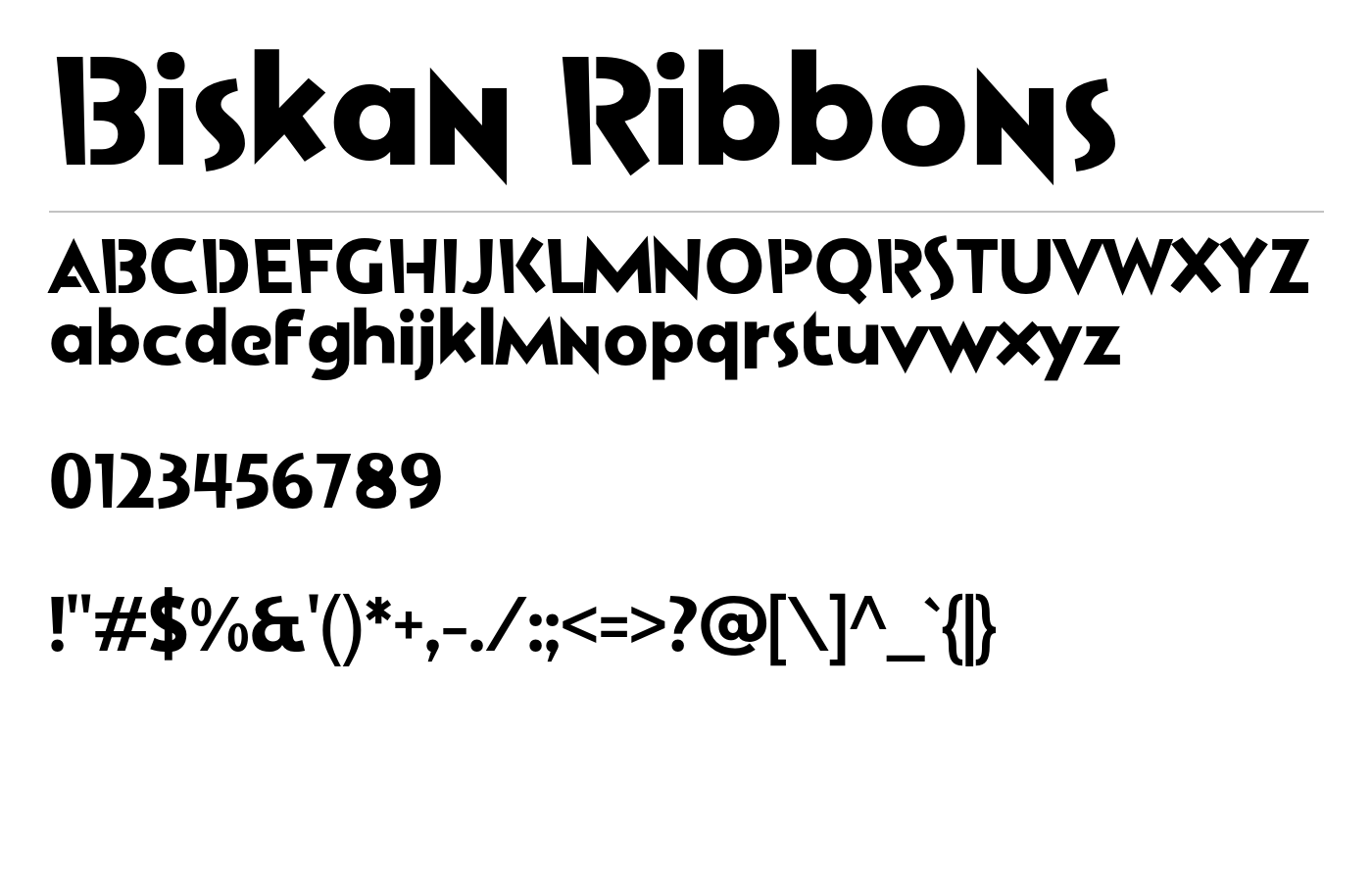
Biskan Ribbons is a bold, geometric sans serif font with playful, ribbon-like cutouts that give it a unique, modern character. Its strong presence and quirky shapes make it ideal for eye-catching headlines, logos, and creative branding where a fun yet confident style is needed. This font works well in projects that seek a distinctive and lively look without sacrificing readability.
Biskan Ribbons Font
About Biskan Ribbons Font
| Font family | Biskan Ribbons Font |
| Designer | Drizy Studio |